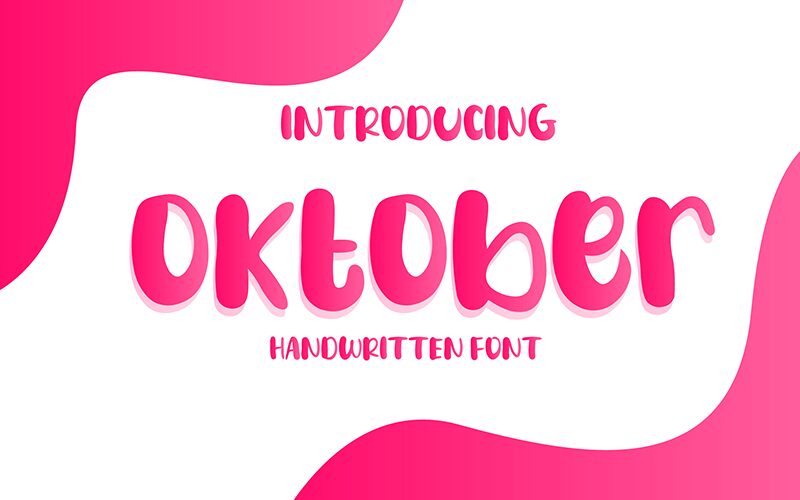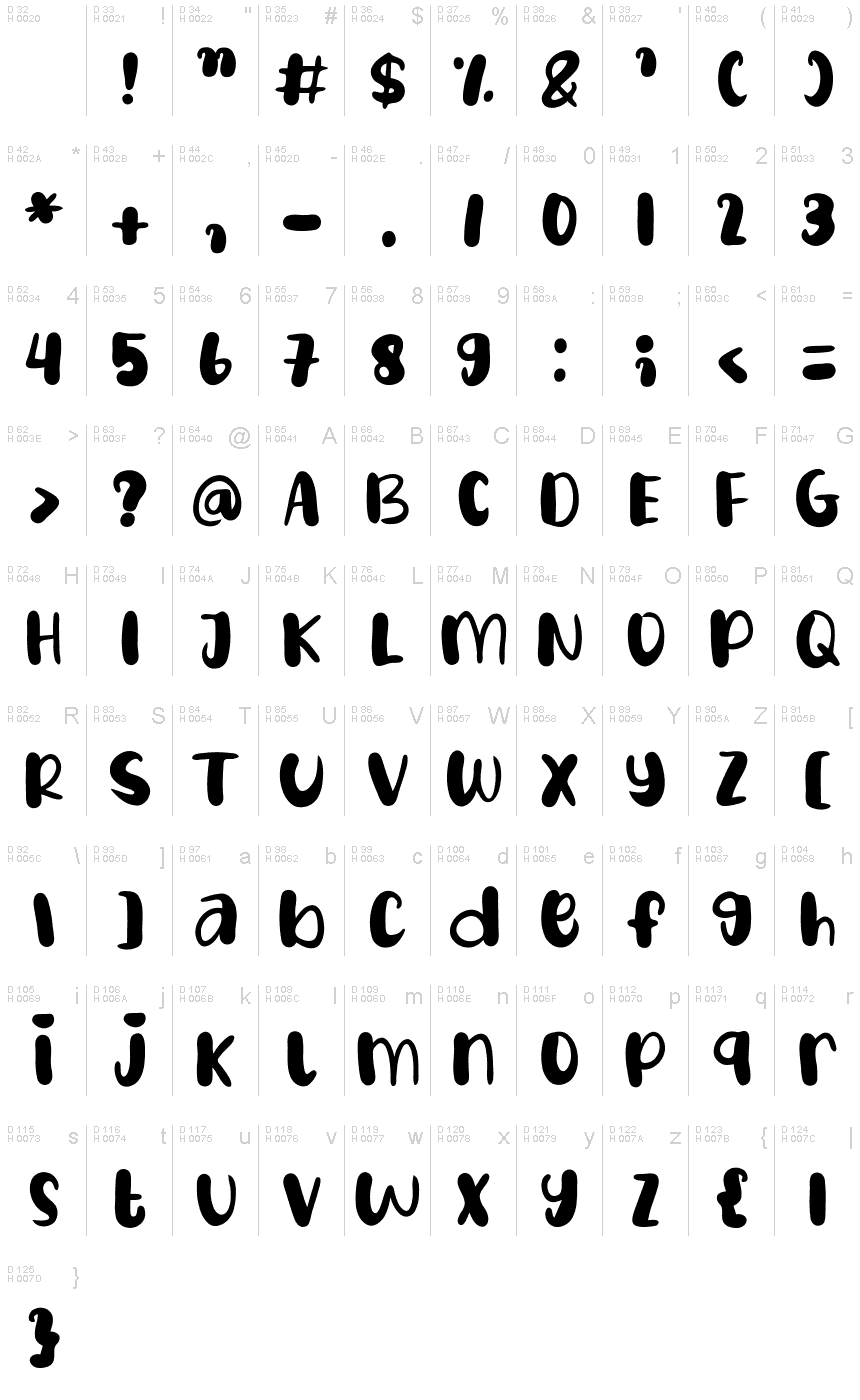
Oktober
Looking for a playful and eye-catching font for your next creative project? Look no further than Oktober! This bold display font, designed by Share Font, boasts a fun and cartoonish style that is perfect for projects that need to stand out from the crowd. Whether you're designing posters, advertisements, or social media graphics, Oktober's thick lines and exaggerated curves will help your message pop. Plus, its bold weight makes it easy to read even at small sizes. Give Oktober a try on your next project and watch as your designs come to life with personality and flair!